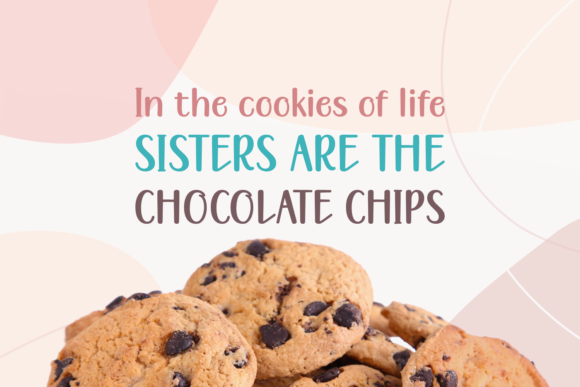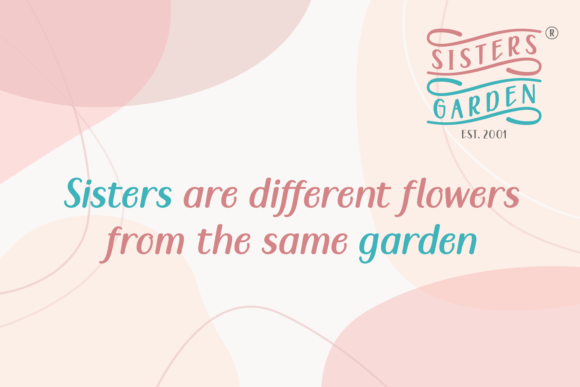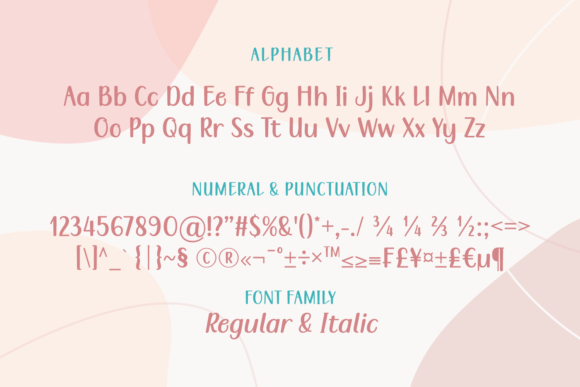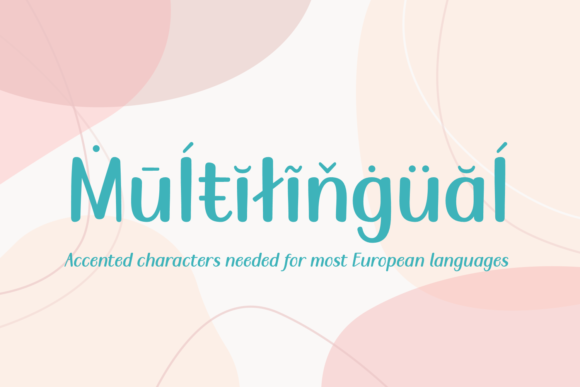
Unleash Your Creativity with Gifted Sister Font
Are you a designer or crafter looking for a unique and stylish display font to elevate your designs? Look no further than Gifted Sister, a stunning font that is sure to make your creations stand out. With its creative and eye-catching style, Gifted Sister is perfect for a wide range of design projects, from posters and thank you cards to quotes, greeting cards, logos, business cards, and more.
Gifted Sister is a display font that is designed to add a touch of elegance and sophistication to any design. Its unique and stylish style makes it perfect for designers and crafters who want to create eye-catching and memorable designs. Whether you’re working on a personal project or a client’s design, Gifted Sister is sure to impress.
Key Features of Gifted Sister Font
- Unique and Stylish Style: Gifted Sister has a distinctive and stylish style that sets it apart from other fonts.
- Highly Versatile: This font can be used for a wide range of design projects, from posters and cards to logos and business cards.
- Elegant and Sophisticated: Gifted Sister adds a touch of elegance and sophistication to any design.
- Easy to Read: Despite its stylish style, Gifted Sister is easy to read, making it perfect for designs that require a clear and concise message.
Uses for Gifted Sister Font
Gifted Sister is a versatile font that can be used for a wide range of design projects, including:
- Posters: Create eye-catching posters that grab attention with Gifted Sister.
- Thank You Cards: Add a touch of elegance to your thank you cards with this beautiful font.
- Quotes: Make your quotes stand out with Gifted Sister’s stylish style.
- Greeting Cards: Create beautiful and memorable greeting cards with this font.
- Logos: Use Gifted Sister to create a unique and memorable logo for your business or brand.
- Business Cards: Add a touch of sophistication to your business cards with this elegant font.
Why Choose Gifted Sister Font?
There are many reasons why Gifted Sister is a great choice for designers and crafters, including:
- Unique Style: Gifted Sister has a unique and stylish style that sets it apart from other fonts.
- High Quality: This font is designed to be high-quality and easy to read.
- Versatility: Gifted Sister can be used for a wide range of design projects.
Tips for Using Gifted Sister Font
Here are a few tips for using Gifted Sister font in your designs:
- Experiment with Different Sizes: Gifted Sister looks great in a variety of sizes, so don’t be afraid to experiment to find the perfect size for your design.
- Pair with Other Fonts: This font pairs well with other fonts, so try pairing it with a complementary font to add depth and interest to your design.
- Use for Headlines and Titles: Gifted Sister is perfect for headlines and titles, so use it to add a touch of elegance and sophistication to your design.